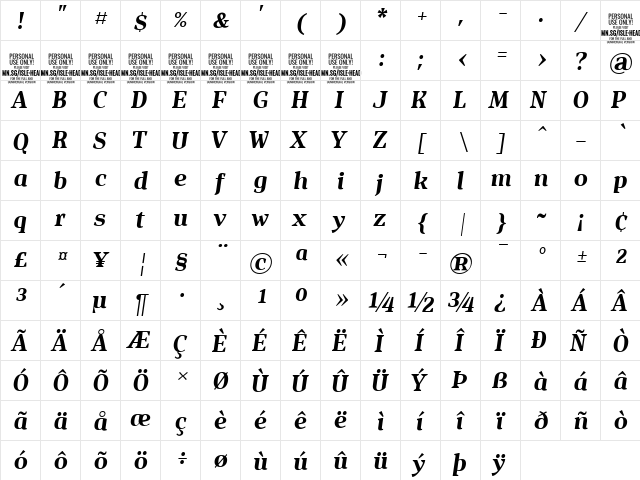
Isle Headline PERSONAL USE Bold Italic Font Preview
| Foundry | Mans Greback |
| Designer | Mans Greback |
Design Context for Isle Headline PERSONAL USE Typeface
Isle Headline PERSONAL USE takes a measured approach to typography — its balanced proportions and neutral character make it a reliable workhorse for both digital and print work. The dynamic lean of this cut emphasises speed and emphasis in any layout. Its bold stroke weight gives it real presence on the page.